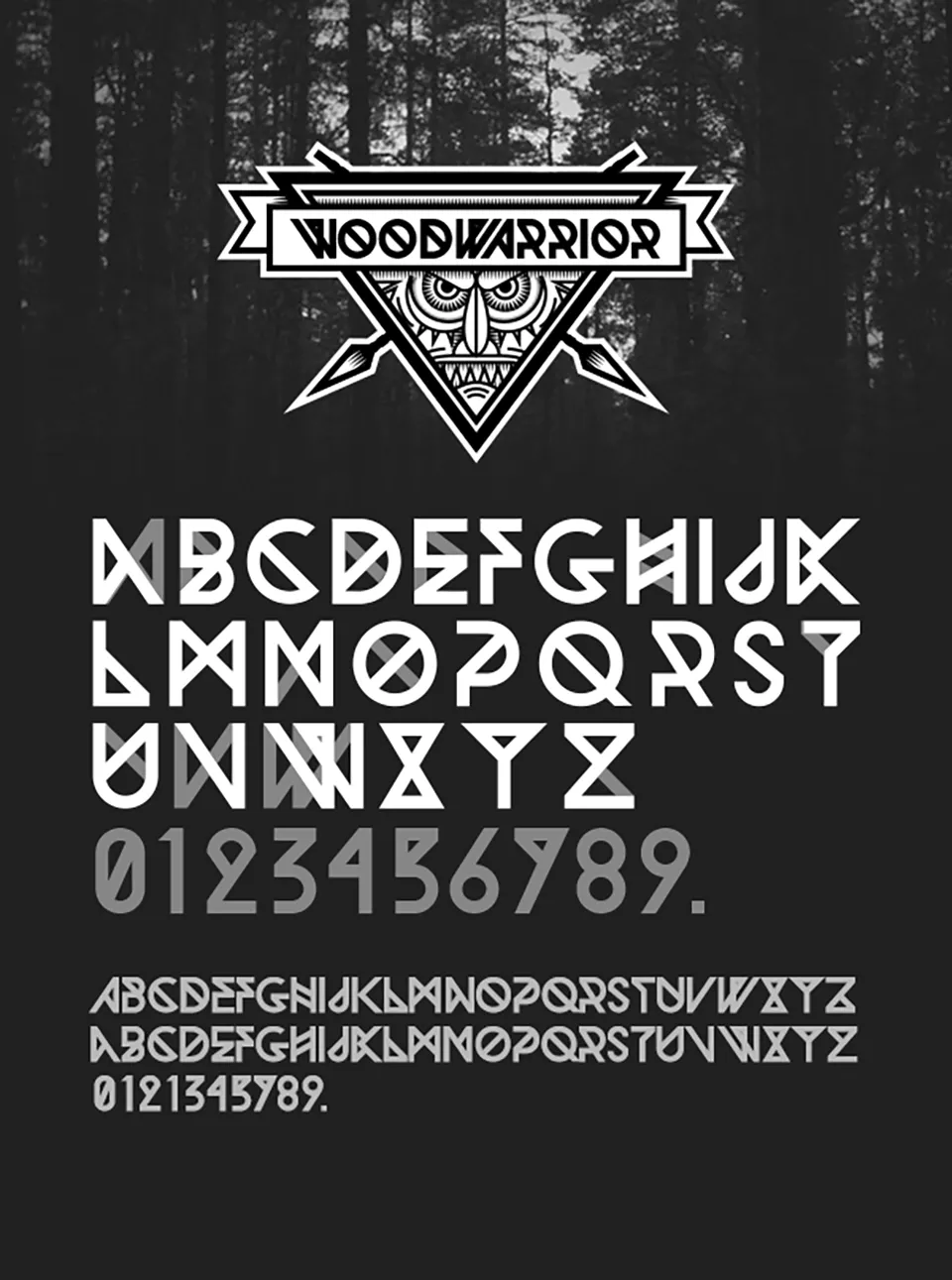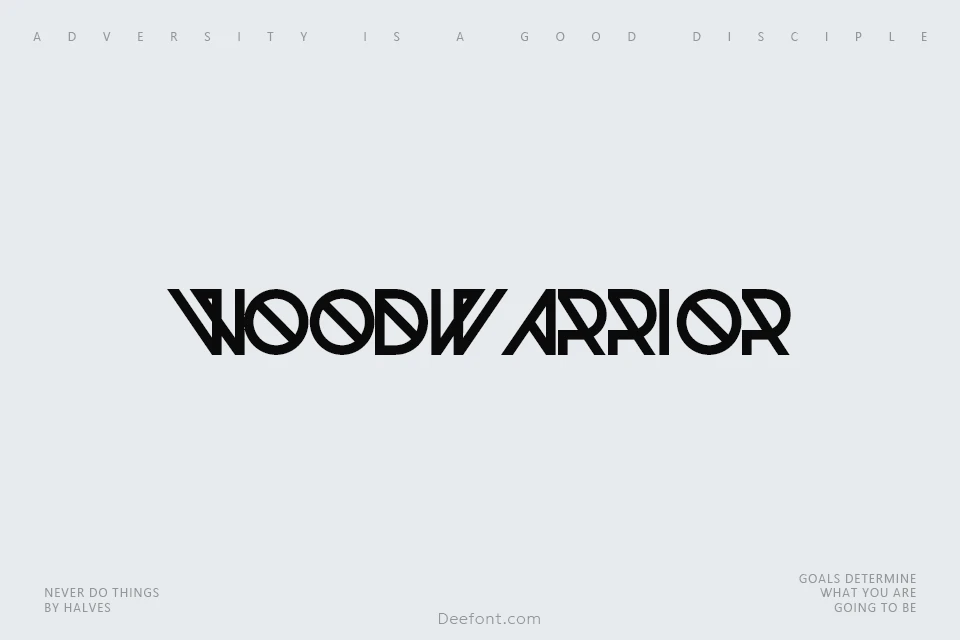
Woodwarrior Font
Woodwarrior Font is a bold geometric typeface designed by Anton Bohlin, inspired by the stark contrast between industrial modernity and the raw natural landscapes of northern regions. Characterized by angular shapes, sharp lines, and a structural aesthetic, this all-caps font features alternative glyphs that enhance its dynamic versatility. With three weights – Light, Regular, and Bold – it combines contemporary minimalism with industrial strength, making it ideal for branding, logos, editorial headers, and digital interfaces. The typeface's chiseled forms evoke both precision machinery and glacial erosion patterns. Woodwarrior excels in projects requiring impactful typography with Nordic-inspired character.